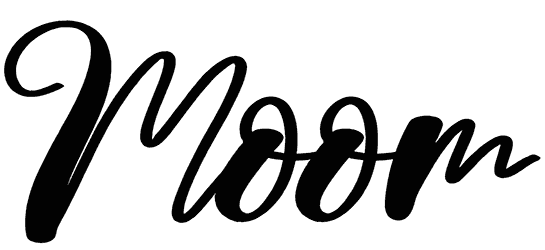
Blacksword Font
Blacksword is an awesome script font. This font has a friendly style that makes it delightful and you can use it for different projects like printed text, magazines, fashions, headlines, ancient texts, weddings, etc. This font comes with both uppercase and lowercase alphabets but it lacks a few characters.